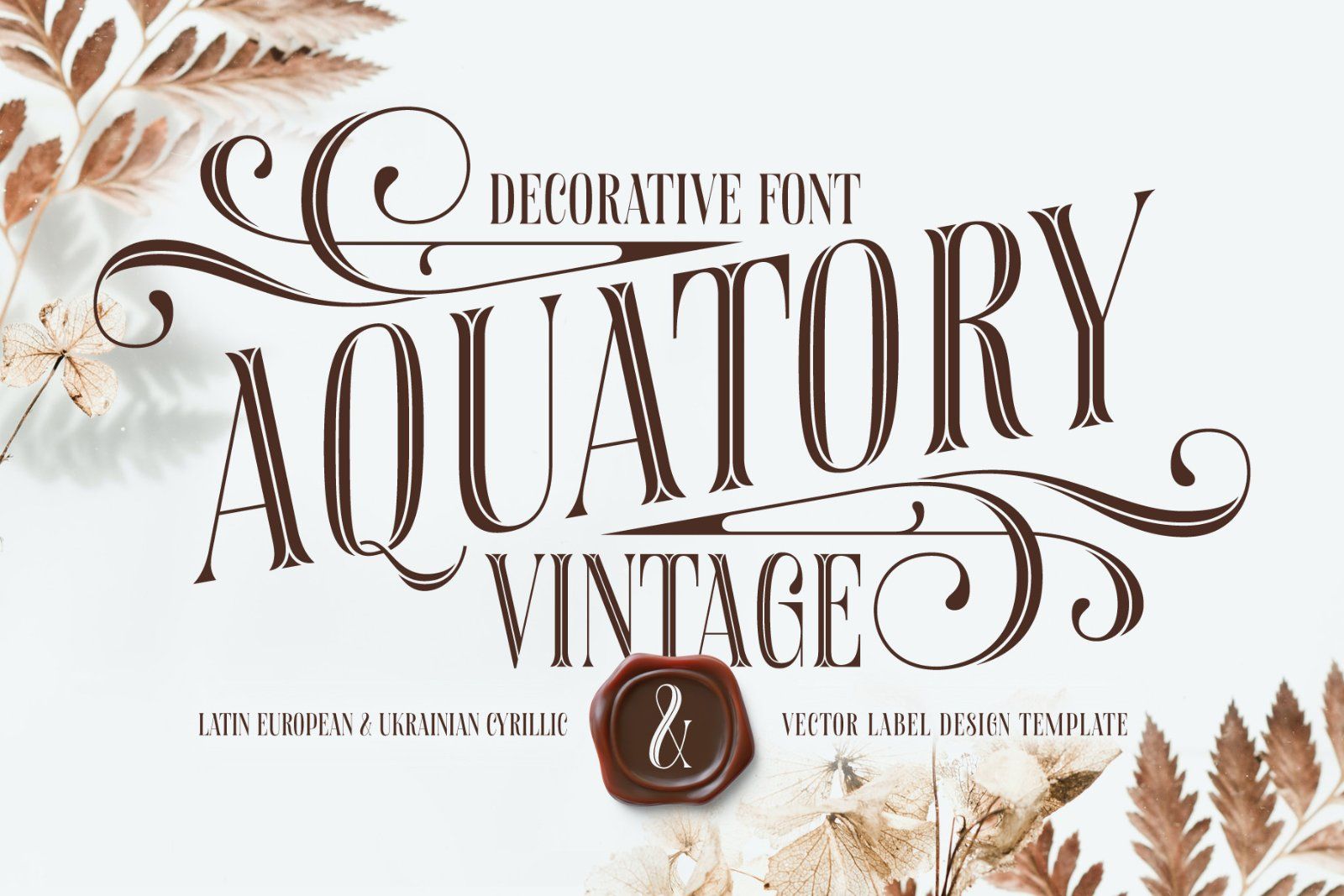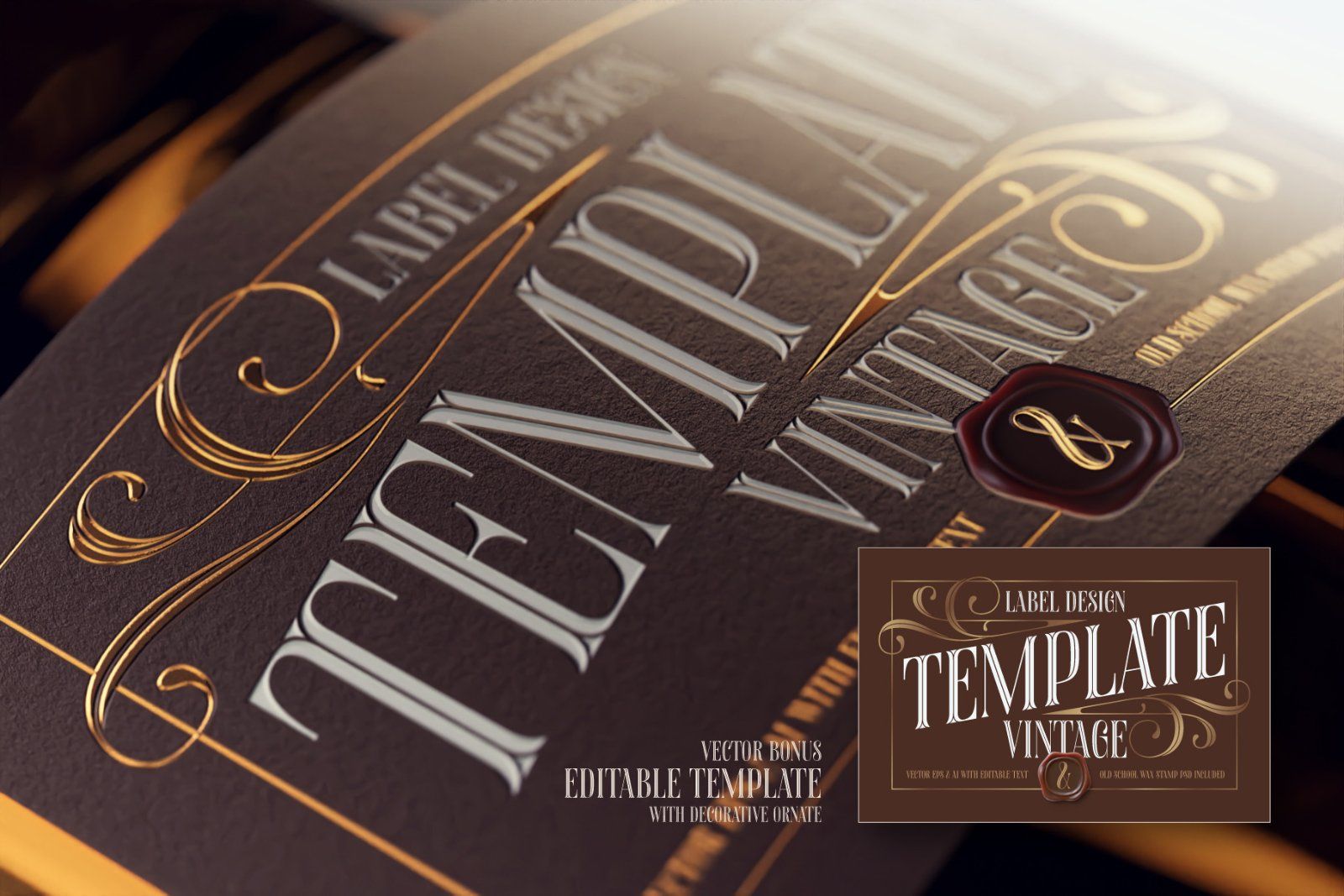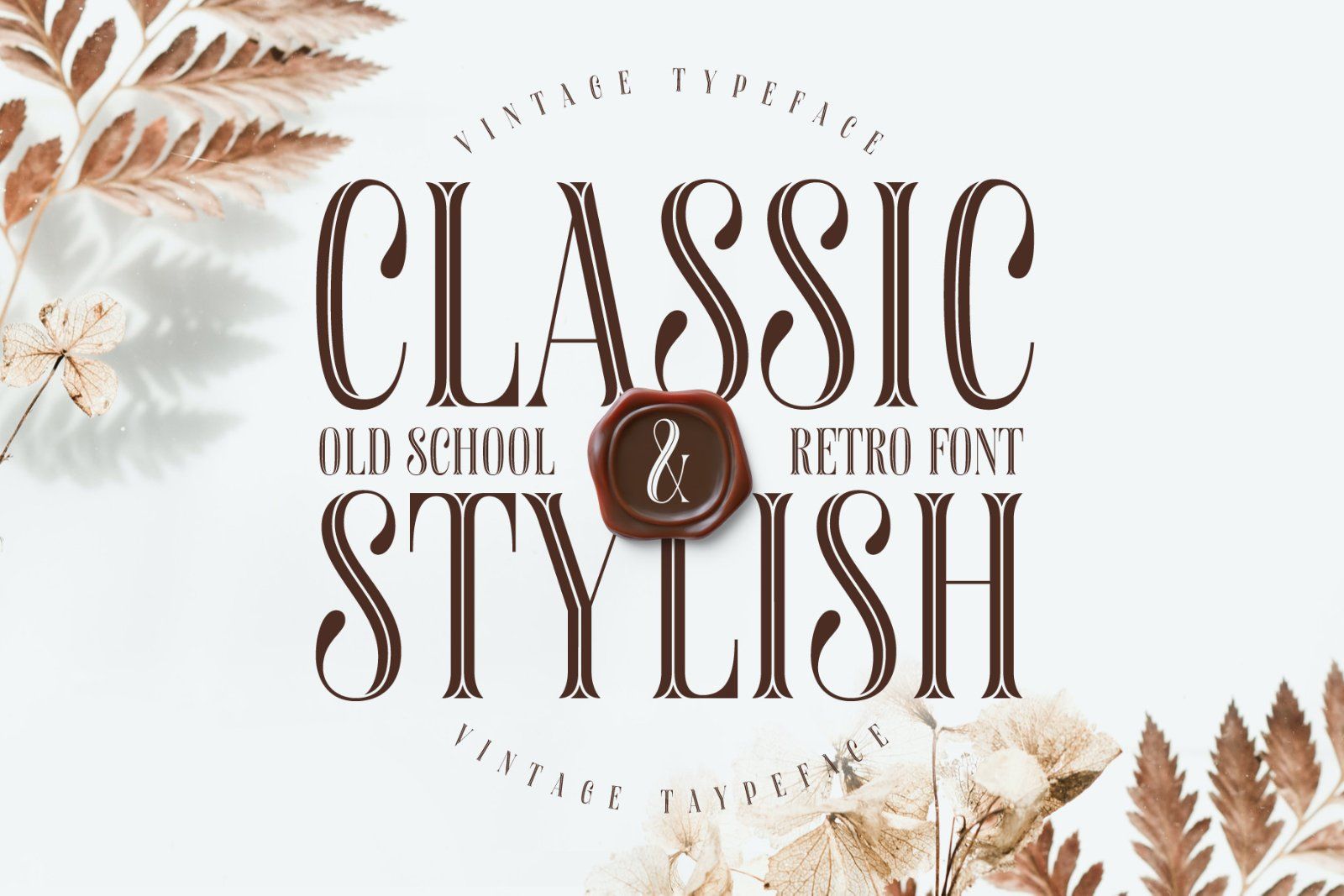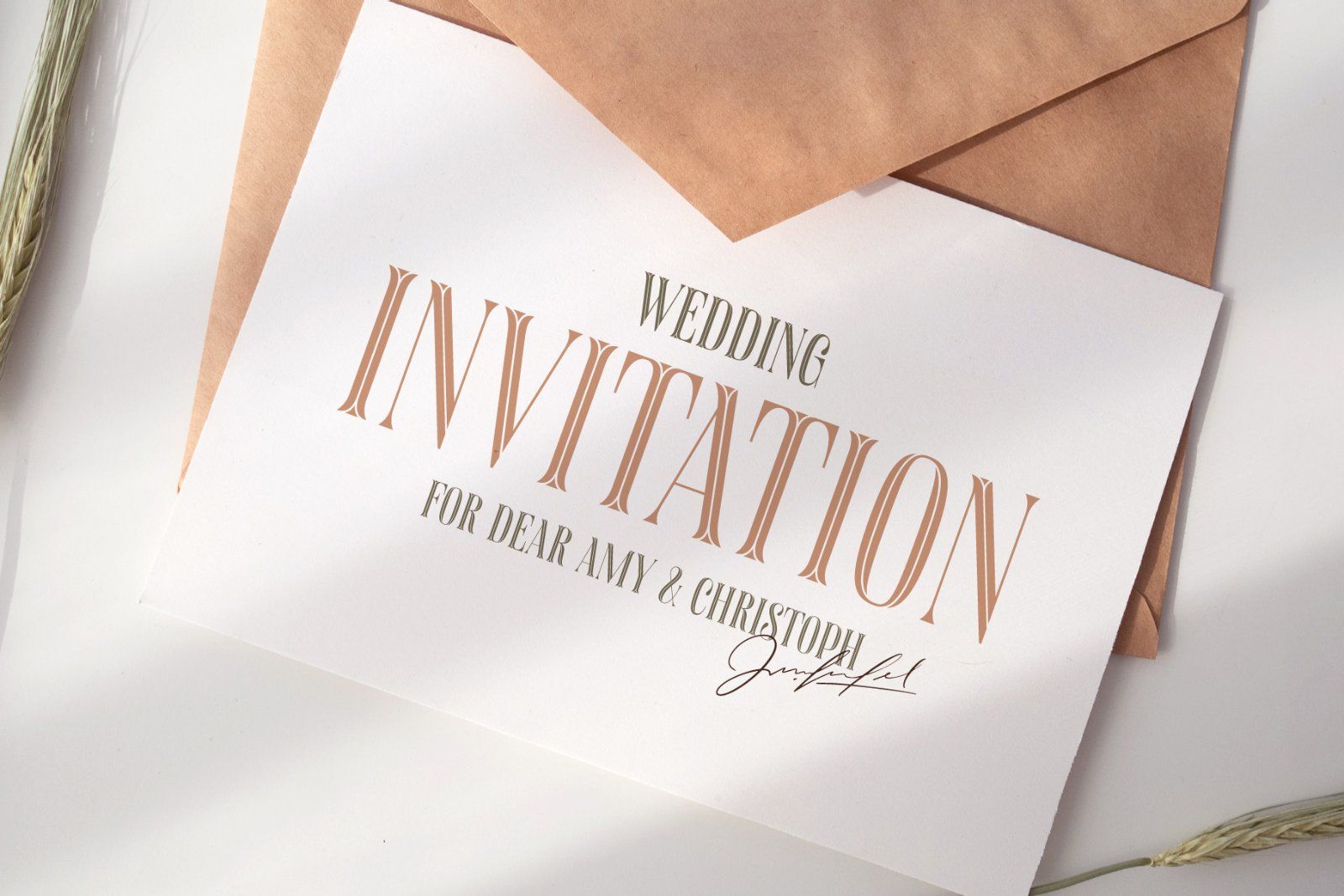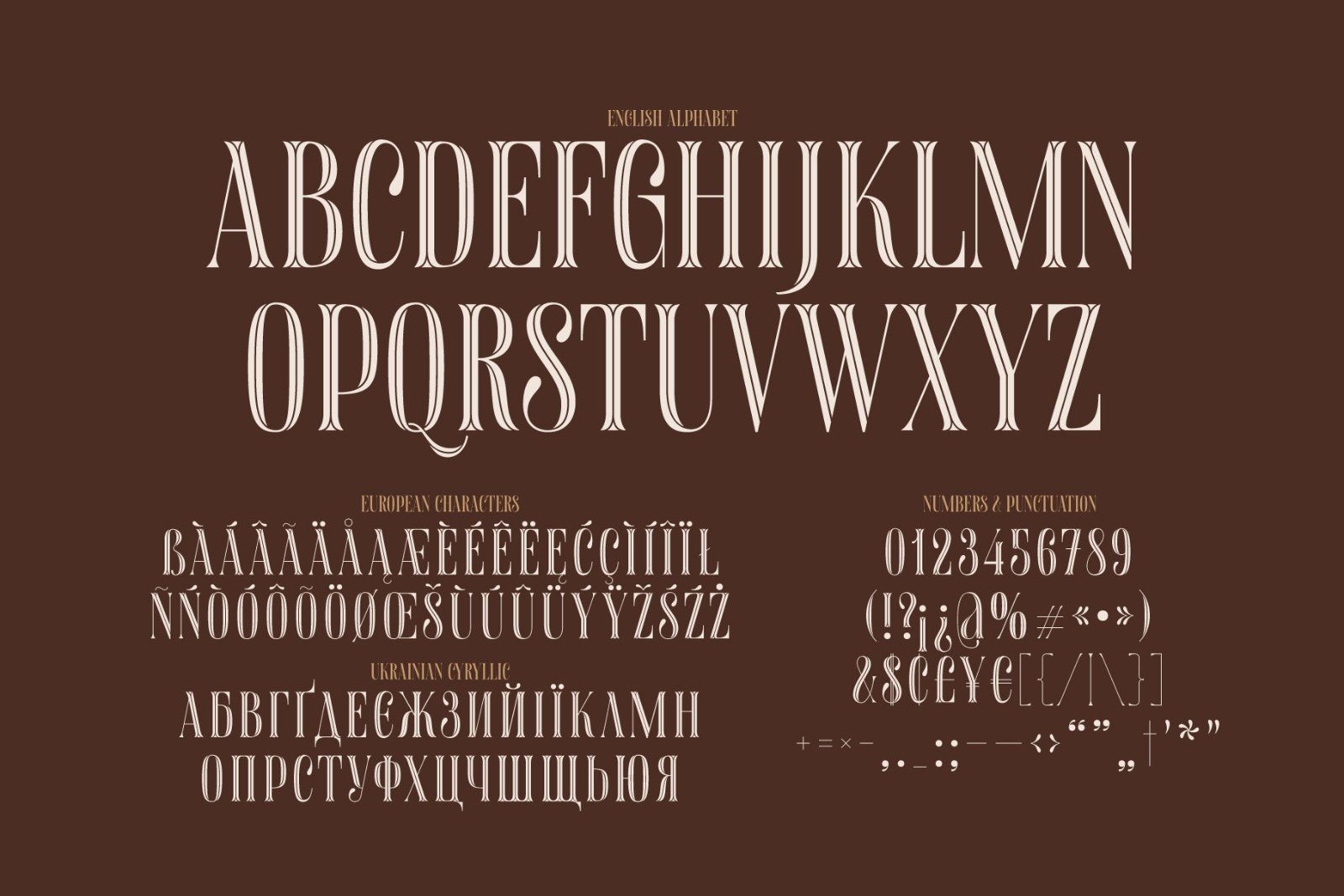
Hi, presenting Aquatory Vintage font. It's a thin and tall font with nice classic shape. Aquatory Vintage is an all caps typeface supplemented with decorative elements. Aquatory Vintage font supports most of the European languages and also has Ukrainian Cyrillic characters.